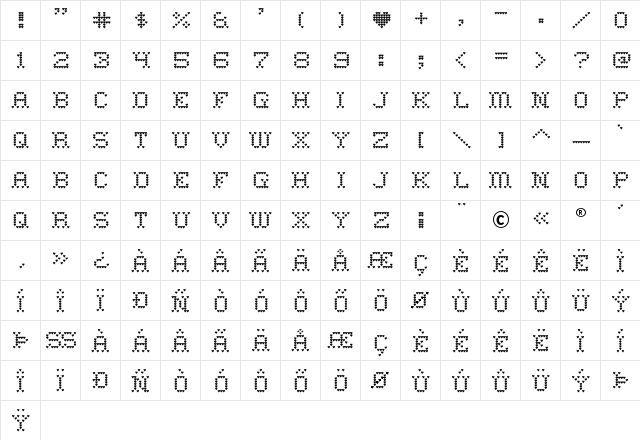
Heart Sweet Heart Regular
Design Context for Heart Sweet Heart Typeface
Heart Sweet Heart is a composed and adaptable typeface that performs quietly and consistently across a wide range of design contexts.